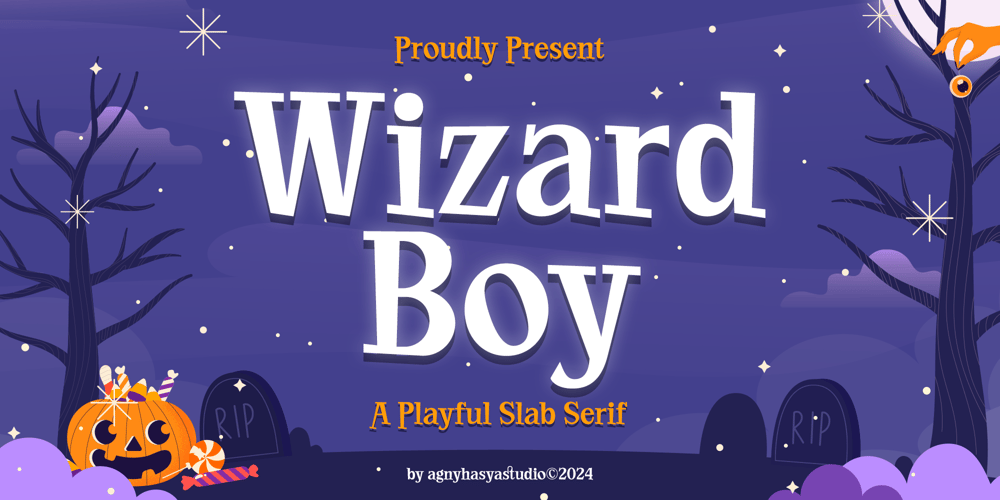
Wizard Boy Font Family was designed by Firman Maulana and published by Agny Hasya Studio. Wizard Boy contains 2 styles and family package options. Introducing Wizard Boy – a playful and fun Slab Serif Typeface that brings a dash of magic and wonder to every design.Essential for Halloween events, it captures the spirit of mischief and enchantment. For children or school projects, this font is the embodiment of youthful creativity.Playful themes come alive when they’re graced with Wizard Boy’s charm.Utilize its spellbinding appeal for branding and advertising campaigns, product designs, magazine layouts and book/cover titles.It weaves an enchanting narrative for art quotes and is perfect for adding an original touch to special events, labels, and product packaging.Wizard Boy It’s not just upper and lowercase letters, but also numerals, punctuation and multilingual support.The font is PUA Encoded characters compatible and works efficiently on both PC & Mac.Start creating and designing with Wizard Boy today. Thank you!